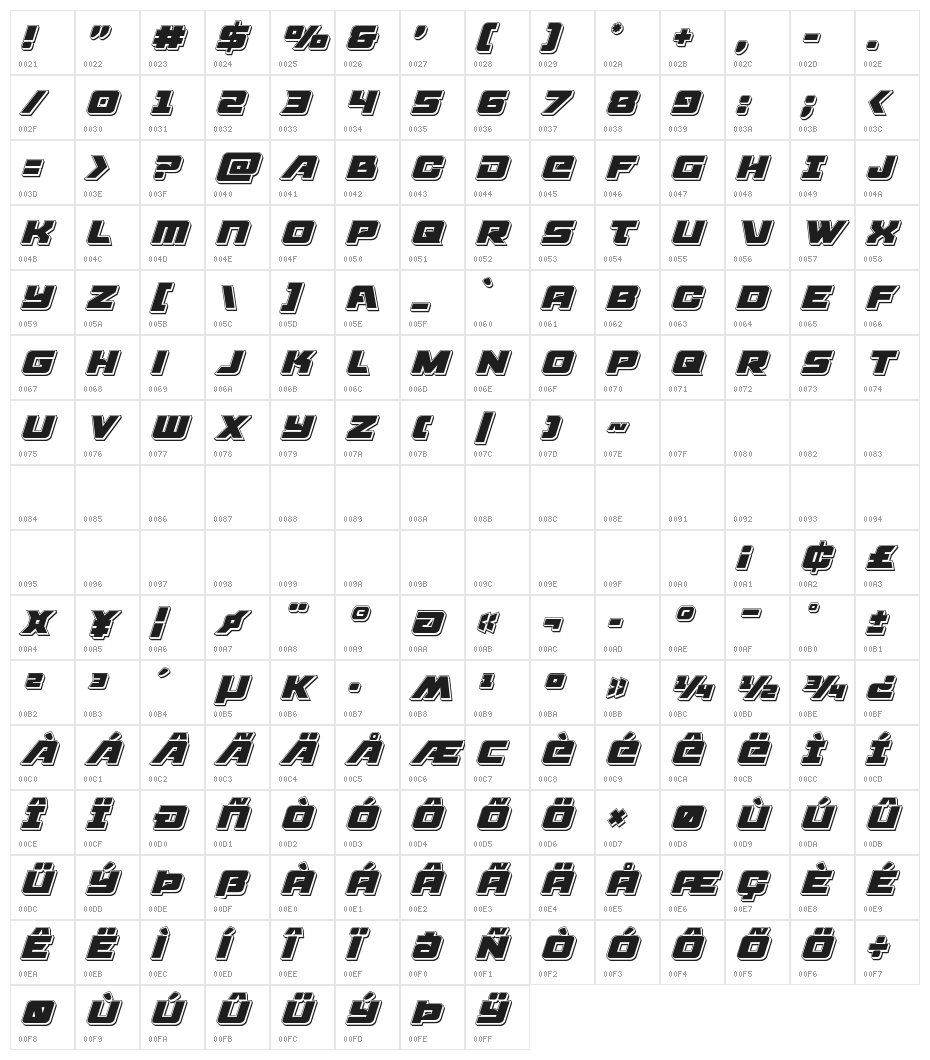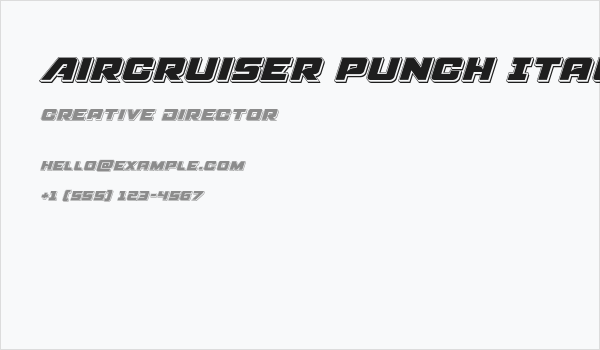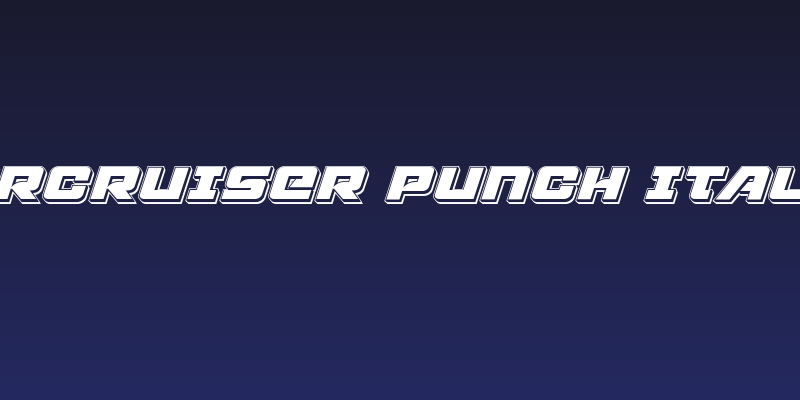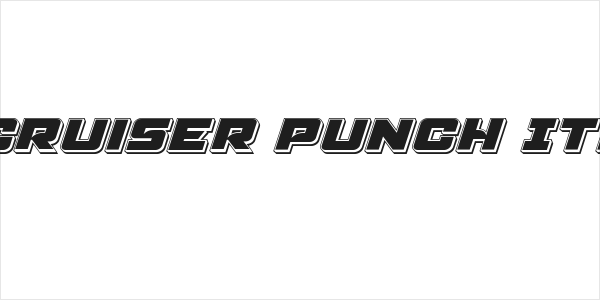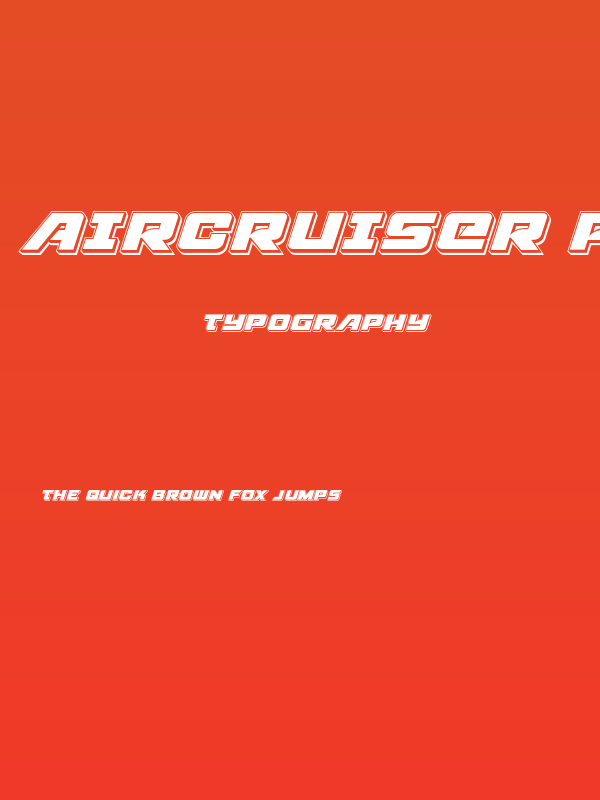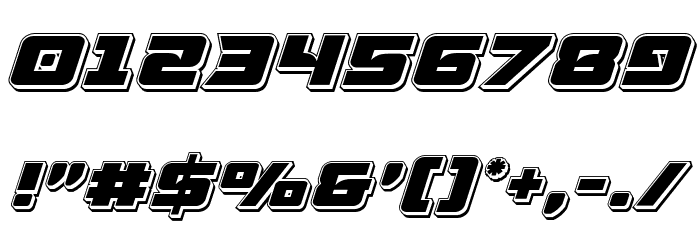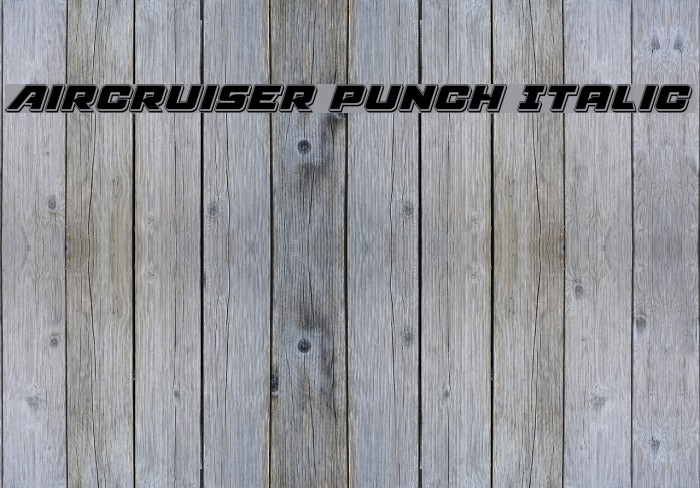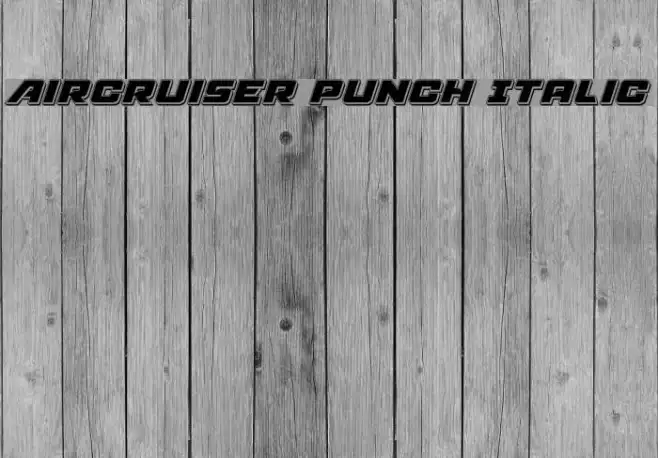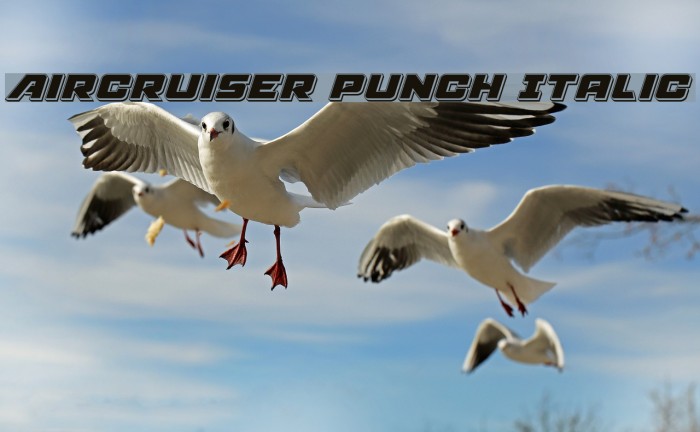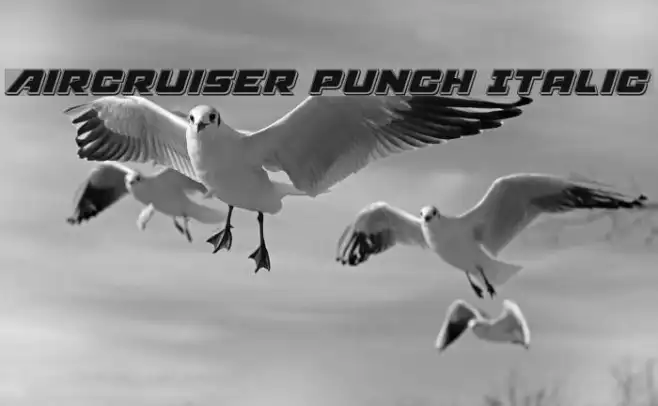
Aircruiser Punch Italic Font
Aircruiser Punch Italic Description
This font features a bold and dynamic style with a futuristic and sporty aesthetic. The characters are italicized, giving them a sense of motion and speed. Each letter is outlined, adding depth and a three-dimensional effect. The strokes are thick and consistent, providing a strong visual impact. The font is highly legible, making it suitable for attention-grabbing headlines and titles. Its unique design is characterized by sharp angles and clean lines, which contribute to its modern and edgy appearance.
| Proposed Projects | Ideal for sports branding, automotive designs, video game titles, and dynamic posters. |